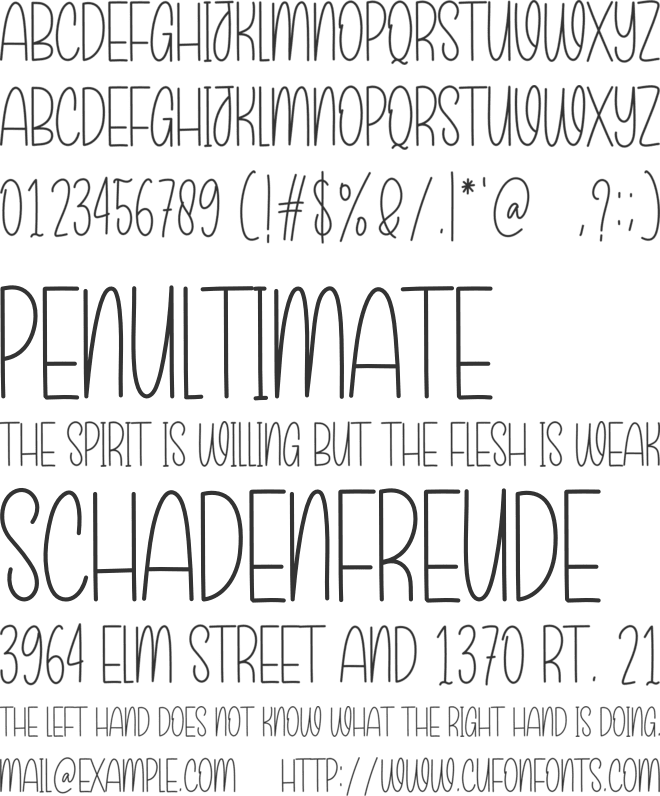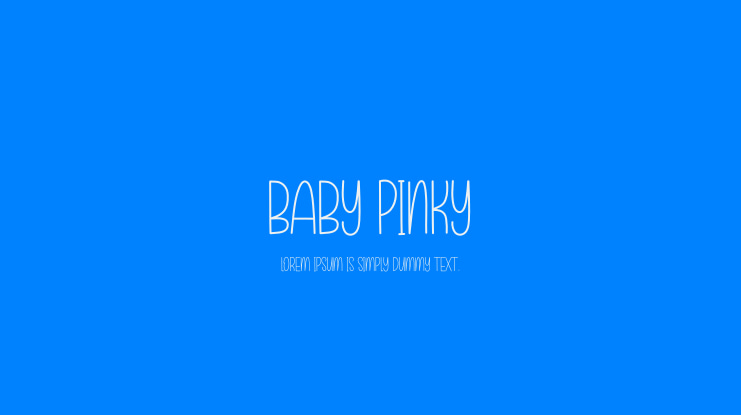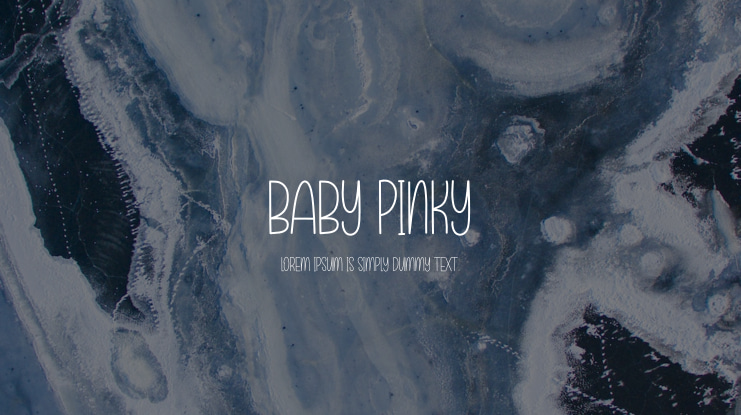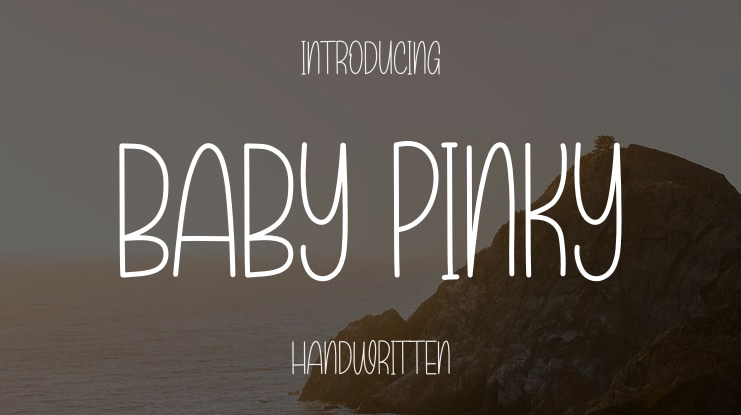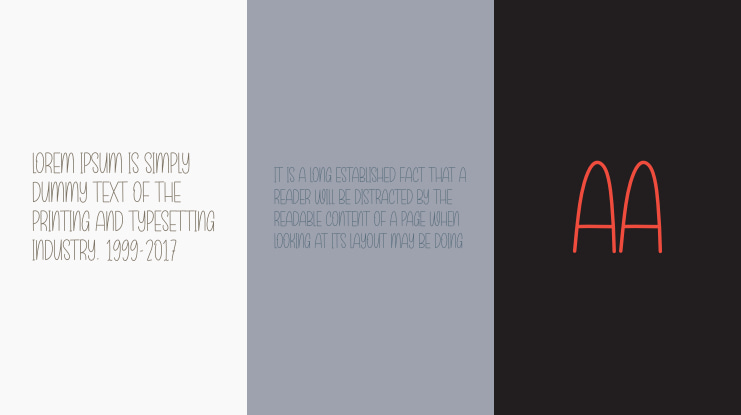
Baby Pinky Font
We are excited to present to you our special and creative products that are designed to provide you with an extraordinary experience. Our collection features the latest style letters that are perfect for various purposes such as wall displays, wedding invitations, social media post logos, advertisements, product packaging, designs, labels, photography, watermarks, invitations, stationery, and any project that demands tasteful handwriting.